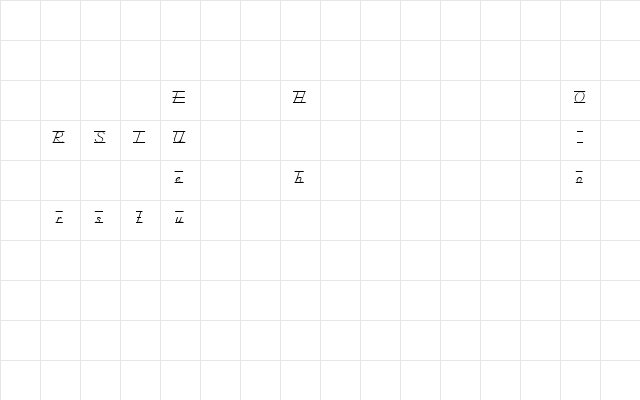
SchoolManuscriptGuidesDemo Regular Font Preview
SchoolManuscriptGuidesDemo Regular
SchoolManuscriptGuidesDemo Regular Font Details
Design Context for SchoolManuscriptGuidesDemo Typeface
SchoolManuscriptGuidesDemo flows with the natural rhythm of handwritten lettering, making it ideal for designs that call for warmth and personal expression.
Font Pairing: Combine SchoolManuscriptGuidesDemo with a simple geometric sans for maximum contrast — the tension between flowing curves and clean structure is a classic typographic pairing.
Pro Tip: Use SchoolManuscriptGuidesDemo for short runs of text — names, titles, or taglines. Extended body copy in script faces tires the eye quickly.